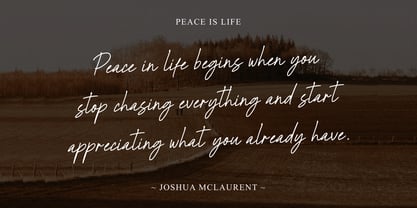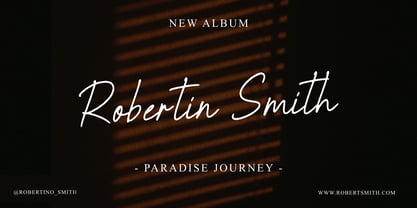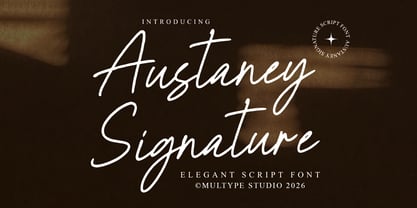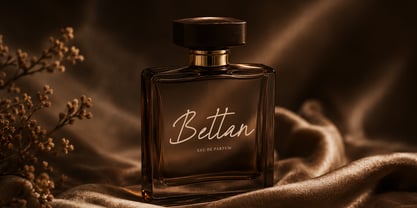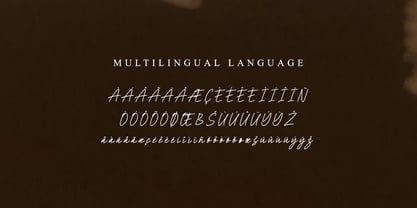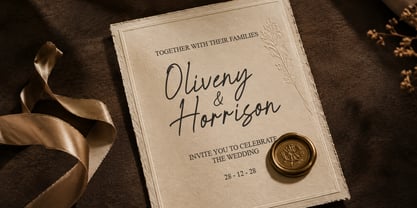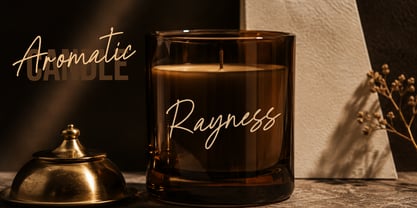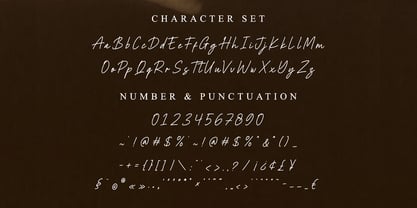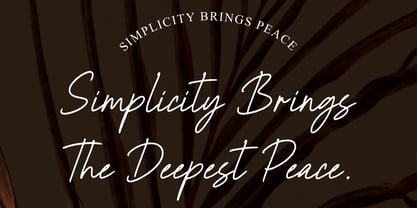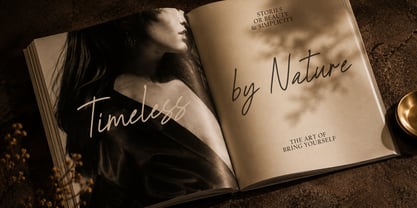
MLTP Austaney Signature
The MLTP Austaney Signature Font Family was designed by Mulia Yanto and published by Multype Studio. MLTP Austaney Signature contains 1 styles. More about this family
MLTP Austaney Signature is an elegant handwritten signature script font designed to bring a sophisticated, personal, and stylish touch to your creative projects. With its flowing strokes, natural letterforms, and graceful character, MLTP Austaney Signature is perfect for designs that need a refined and luxurious handwritten feel.
This elegant script font is ideal for signature logos, personal branding, wedding invitations, stationery, fashion branding, beauty products, photography, social media graphics, packaging, and editorial designs. Its expressive handwritten style also works beautifully for quotes, greeting cards, product labels, and other projects that call for a personal touch.
Whether you're creating a luxury brand identity or a beautiful wedding design, MLTP Austaney Signature adds an authentic handwritten character while maintaining a clean and sophisticated appearance.